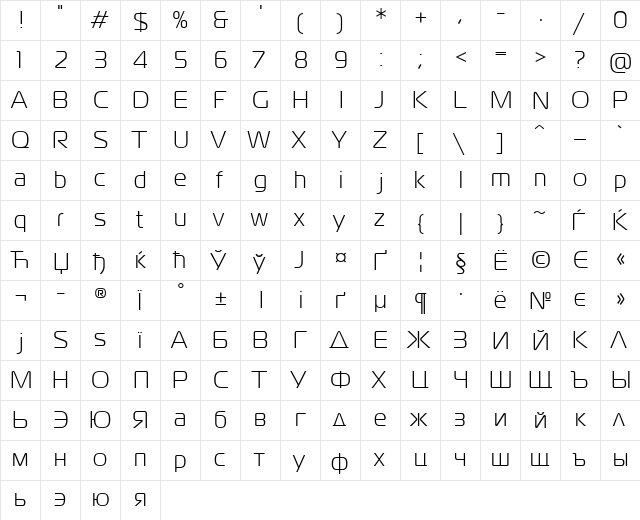
MagistralC Regular
Design Context for MagistralC Typeface
MagistralC offers clean, dependable letterforms without strong stylistic allegiance, making it a practical choice for designers who need flexibility.